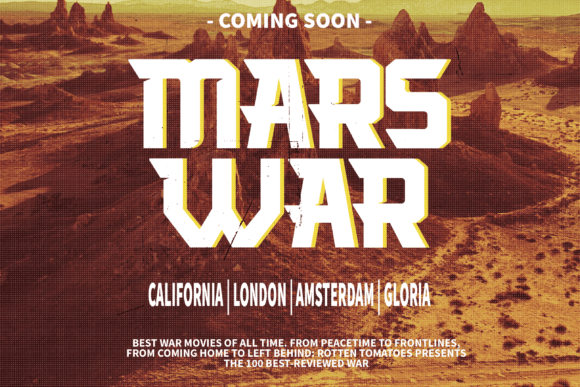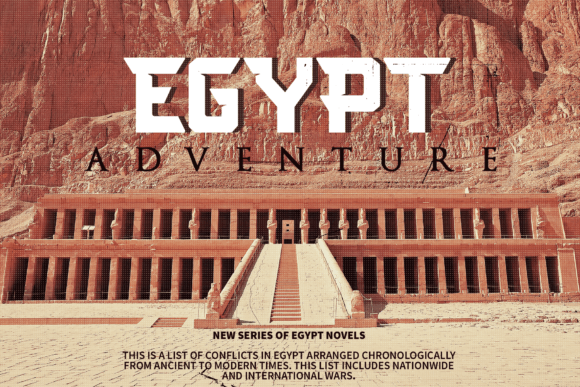
Introducing Arcades Font: The Perfect Addition to Your Design Library
Are you a designer or crafter looking for a modern and playful display font to elevate your creative projects? Look no further than Arcades Font! This versatile font is designed to capture everyone’s attention and is compatible with popular design tools such as Photoshop and Silhouette Design Studio.
What Makes Arcades Font So Special?
Arcades Font is a modern and playful display font that is perfect for crafters and designers alike. Its unique and eye-catching design makes it an excellent choice for a wide range of creative projects, from digital designs to print materials. Whether you’re creating a logo, brochure, or social media graphic, Arcades Font is sure to make your design stand out.
Key Features of Arcades Font
- Modern and Playful Design: Arcades Font features a modern and playful design that is sure to capture everyone’s attention.
- Perfect for Crafters and Designers: Arcades Font is designed specifically with crafters and designers in mind, making it an excellent addition to your fonts library.
- Attention-Grabbing: With its unique and eye-catching design, Arcades Font is sure to make your designs stand out and grab everyone’s attention.
How to Use Arcades Font in Your Designs
Arcades Font is incredibly easy to use and can be incorporated into a wide range of design projects. Here are a few ideas to get you started:
- Logos and Branding: Use Arcades Font to create a unique and eye-catching logo that will help your brand stand out.
- Digital Designs: Add Arcades Font to your digital designs, such as social media graphics, blog posts, and email newsletters, to make them more engaging and attention-grabbing.
- Print Materials: Use Arcades Font in your print materials, such as brochures, flyers, and posters, to make them more visually appealing.
- Crafting Projects: Arcades Font is also perfect for crafters, and can be used in a variety of crafting projects, such as scrapbooking, card making, and DIY signs.
Why You Need Arcades Font in Your Fonts Library
Having a diverse and versatile fonts library is essential for any designer or crafter. Arcades Font is an excellent addition to your fonts library, as it offers a unique and eye-catching design that can be used in a wide range of creative projects.
With Arcades Font, you’ll be able to:
- Elevate Your Designs: Add a touch of modernity and playfulness to your designs with Arcades Font.
- Save Time: With Arcades Font, you’ll have a go-to font for a wide range of design projects, saving you time and effort.
- Increase Your Creative Options: Arcades Font offers a unique and eye-catching design that will give you more creative options and inspiration for your designs.
In conclusion, Arcades Font is a modern and playful display font that is perfect for crafters and designers alike. Its unique and eye-catching design makes it an excellent choice for a wide range of creative projects, and its compatibility with popular design tools makes it easy to incorporate into your existing design workflow.